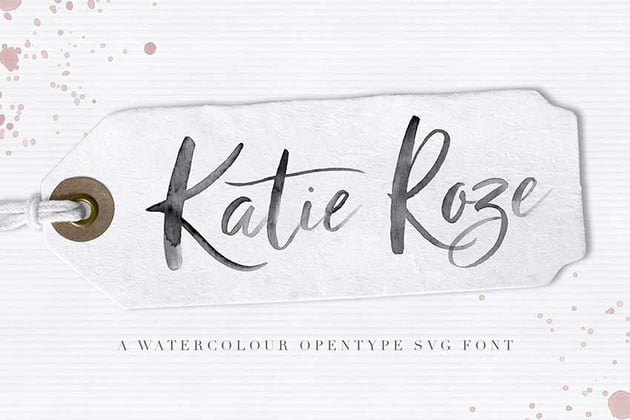
42 Best Watercolor Fonts (Fonts That Look Like Watercolor)
In this article, we take a look at awesome calligraphy watercolor fonts that look realistic and elegant and that are perfect for giving your designs a handcrafted feel.
Watercolor fonts bring a beautiful handmade quality to designs. When properly designed, these fonts can be soft, smooth, and have a range of opacities. You can learn how to make a font look like watercolor, or get some great options for fonts that look like watercolor and are ready to use.
Likewise (OTF, TTF, WOFF)
This watercolor calligraphy font is beautiful and charming. The watercolor look is very natural and playful. This font is suitable for designs for school projects, invitations, and quotes.
Anise (OTF, WOFF)
Anise is a watercolor font set in all capital characters. The watercolor effect is subtle, and the characters have a natural quality. Use this watercolor font for invitations, quotes, and poster designs.
Cherions SVG Sans (OTF, SVG)
Cherions SVG Sans is an SVG format font—this allows fonts to have transparencies, which is perfect for watercolor fonts. The pack also comes with a vector format, meaning that the characters are solid. Use this watercolor writing font for apparel design, branding, and marketing.
Originals (TTF, WOFF)
This watercolor font is playful and perfect for display use. The Originals font looks natural and spontaneous, and there's a hand-drawn quality to its characters. This font is suitable for cards, signs, and apparel design.
Walmath (OTF, TTF, EOT, WOFF, SVG)
This watercolor calligraphy font possesses so much depth. The watercolor design is bold and based on real watercolor script. To take full advantage of this watercolor font, use the SVG format and enjoy its authentic look.
Quotable (OTF, SVG)
Quotable is a beautiful color font. The pack includes a color version with the SVG format and a solid black color with the normal OTF format. This watercolor font is suitable for branding, social media templates, and market designs.
Simple Pleasures (OTF, SVG)
Simple Pleasures is a great font that looks like watercolor. It was designed specifically to be used on social media posts, branding, and advertising. The pack includes an SVG format to get the true transparency of watercolor fonts and a solid version for a heavy airbrush lettering font effect.
Stay Tuned (OTF, SVG)
This awesome watercolor font looks natural and real. Stay Tuned comes with a combination of lowercase and uppercase fonts, but with the same height. Get a handmade look by using a combination of both on your branding projects.
Rainly (OTF, TTF, SVG)
This watercolor cursive font is the perfect balance of modern and classic. You can feel the energy with each character and see how spontaneous they look. This watercolor font comes with an SVG format that lets the different opacities show through.
Mina Jackstone (OTF, SVG)
If you don't have time to learn how to make a font look like watercolor, Mina Jackstone is a great shortcut! The watercolor texture is so realistic and classic. This watercolor font is perfectly suitable for logos, magazines, and wedding cards.
Spring Rain (OTF, SVG)
This watercolor calligraphy font has so much texture. The strokes are based on real-life handwriting, and the watercolor is natural. Use this font for branding and marketing materials, social media posts, and many design projects.
Hello Friday (OTF, SVG)
If you're looking for a watercolor font that resembles a serif font, Hello Friday is a great choice. This SVG watercolor font includes plenty of ligatures and an awesome transparency effect. This natural-looking font is suitable for branding, fashion labels, and wedding invitations.
Mira (OTF, TTF)
This watercolor cursive font is hand-drawn and romantic with its extra swirls. The font has rough edges and an illusion of double-brush. Use this font for wedding invitations, Valentine's Day designs, and branding.
Bersihkan (OTF, SVG)
This watercolor calligraphy font is based on real watercolor pen handwriting. It was designed with so much care and attention to detail. The font includes an SVG file containing realistic watercolor effects on each character.
Ciera (OTF, SVG)
Check out this elegant watercolor typography with serif and sans serif options. The pack includes a solid and an SVG version so the watercolor texture can be used. The pack also contains floral illustrations and premade logos.
Greget (OTF, TTF)
This watercolor calligraphy font is hand-painted and perfect for a romantic wedding invitation. The watercolor font is rough and is inspired by ink drops and see-through watercolor. The pack includes paintbrushes to apply to the solid fonts.